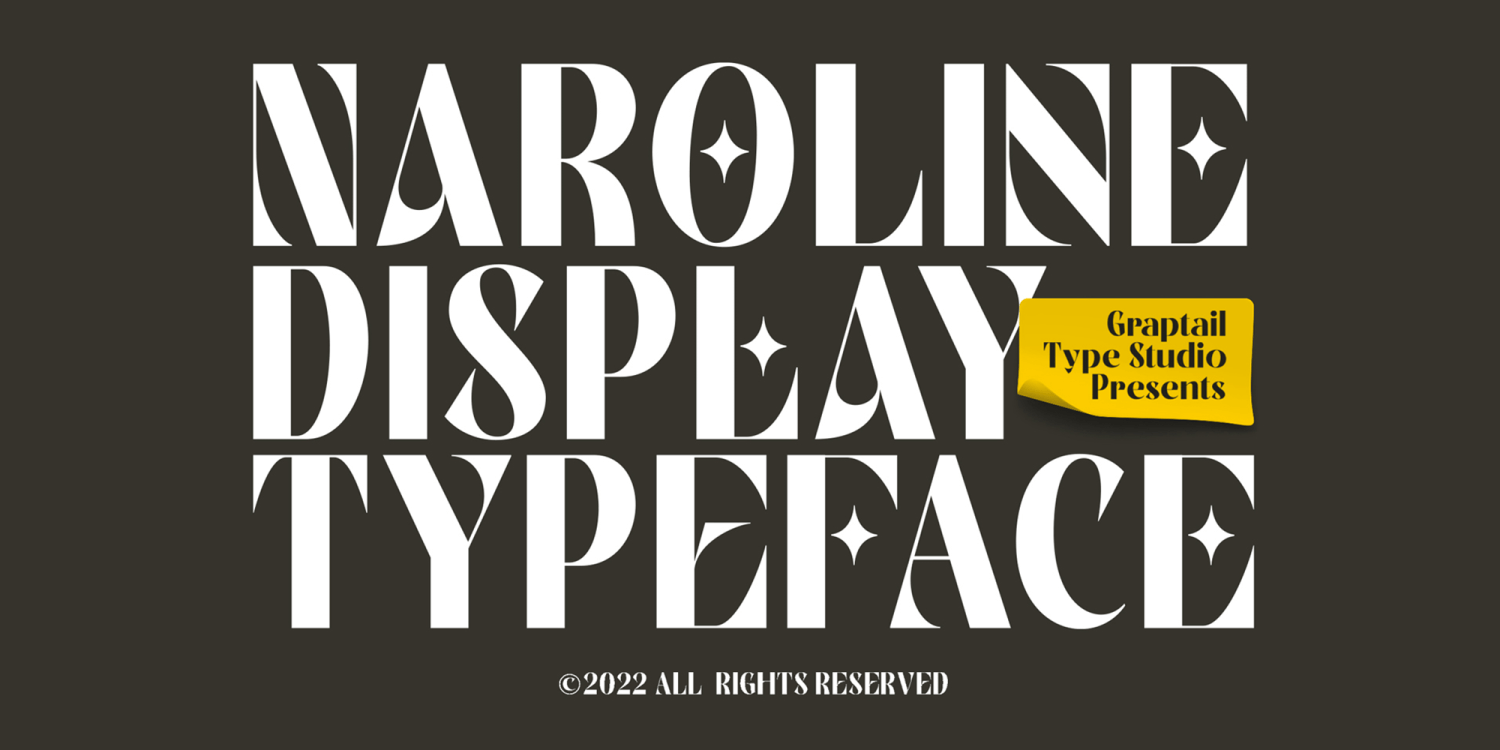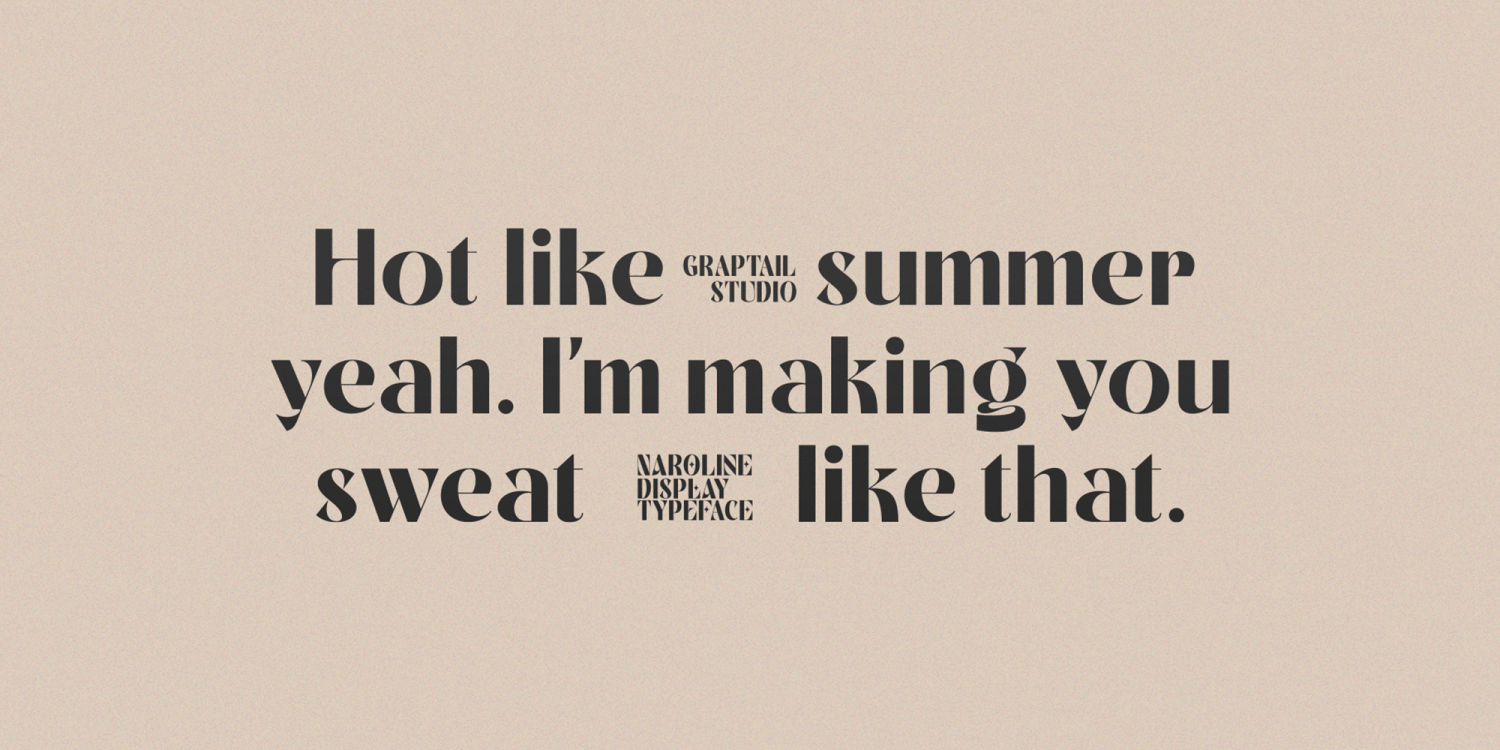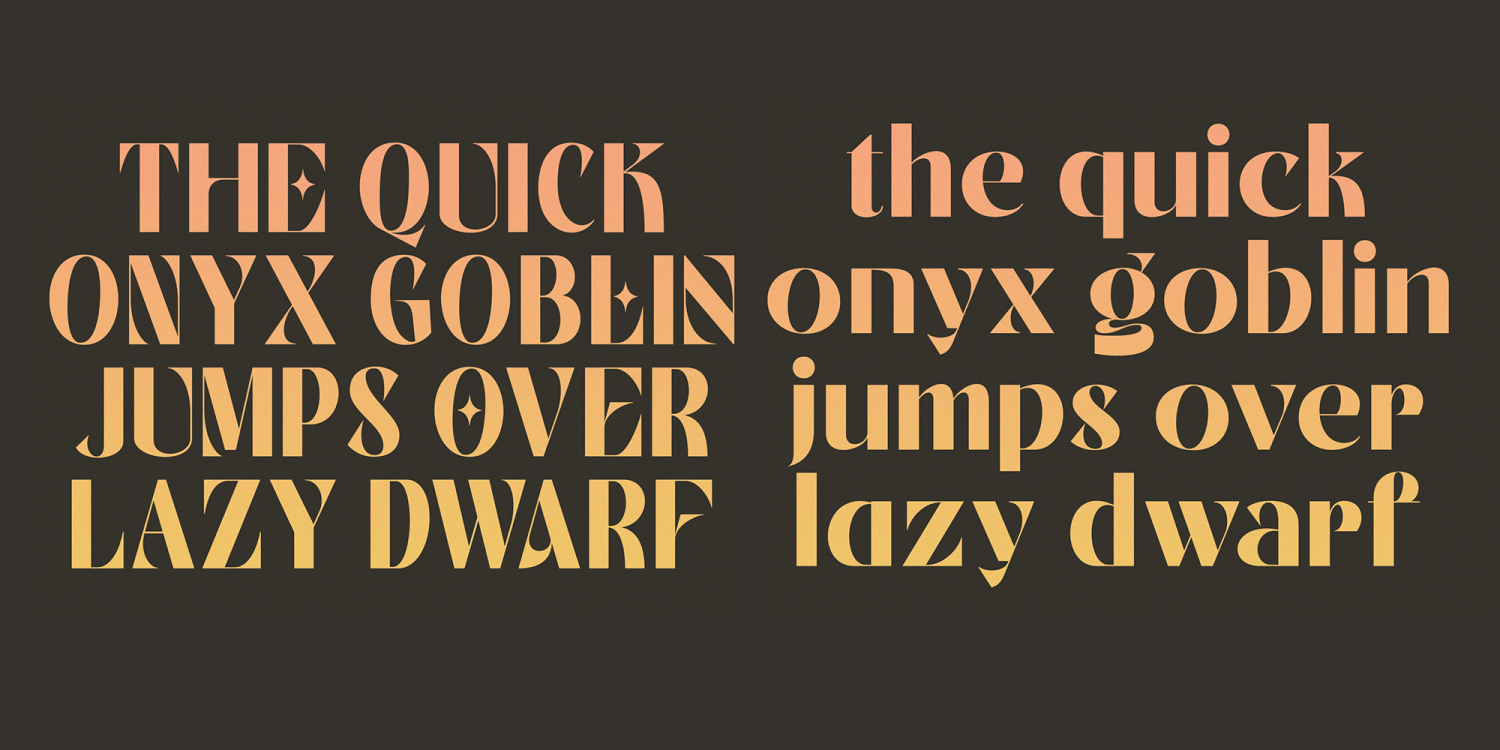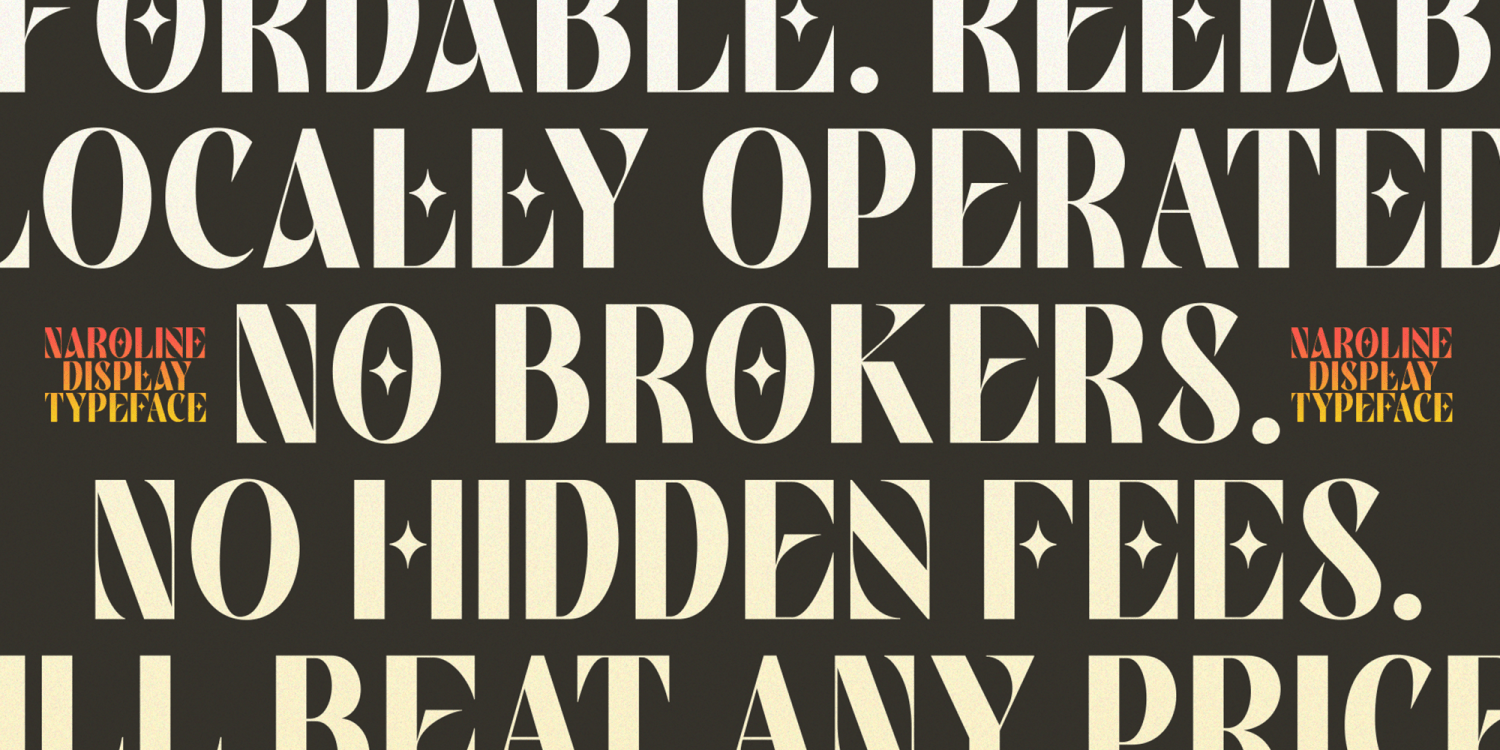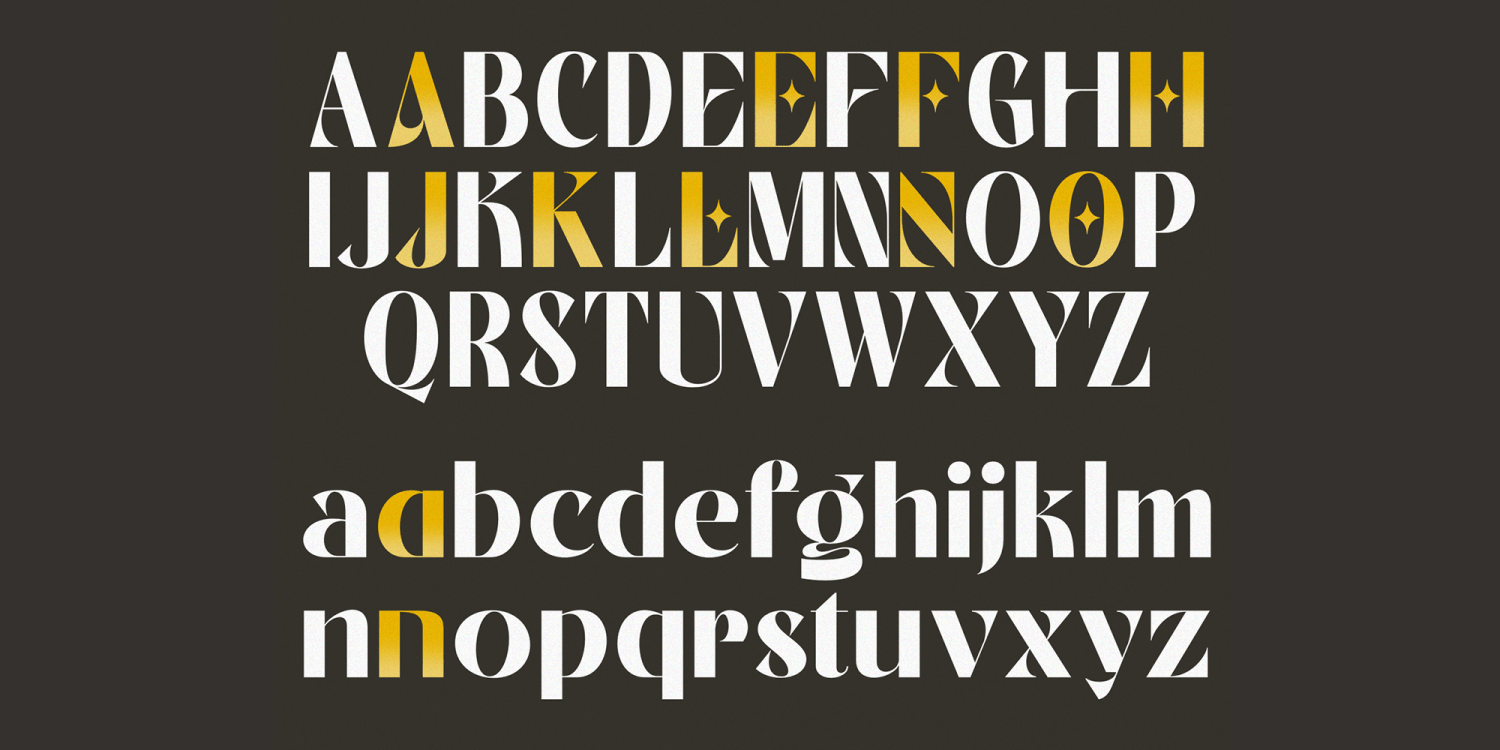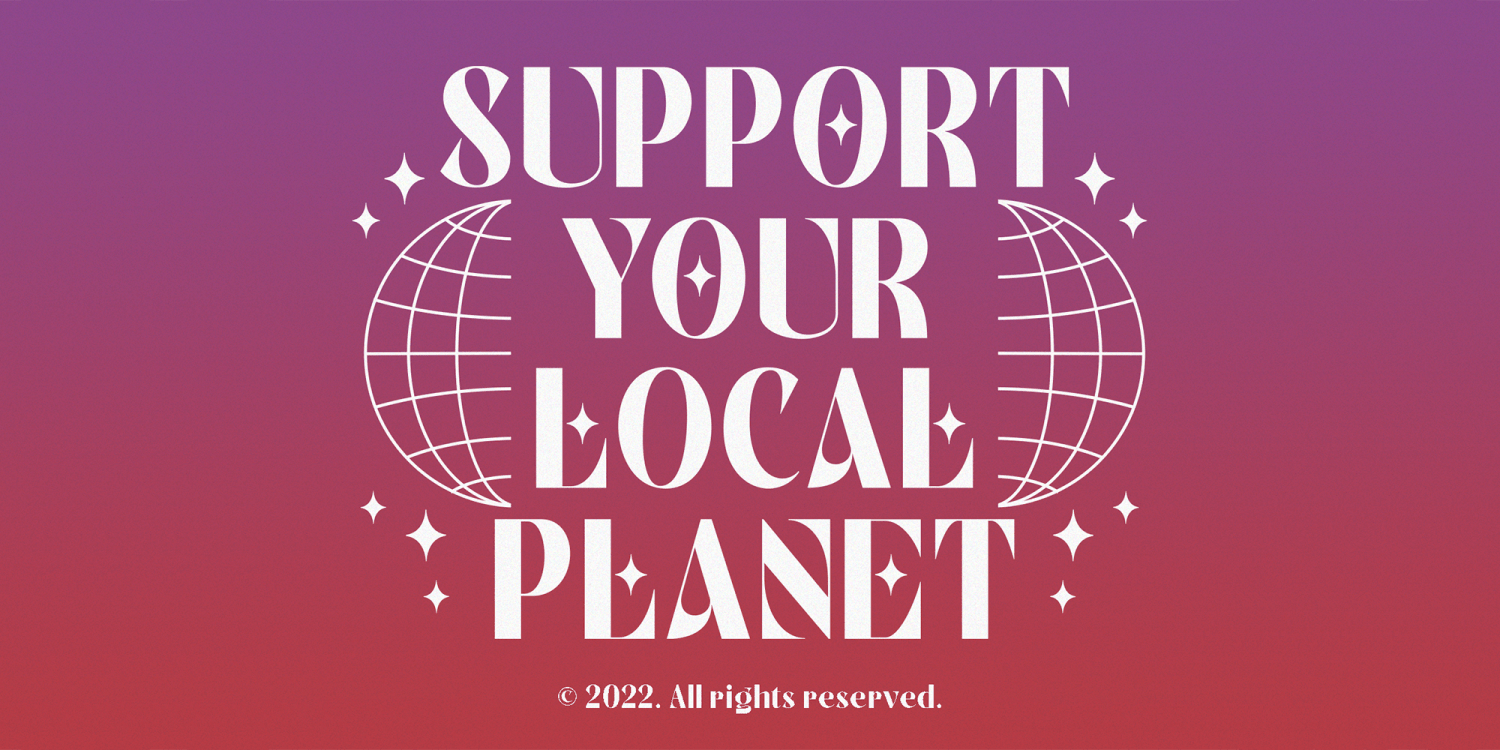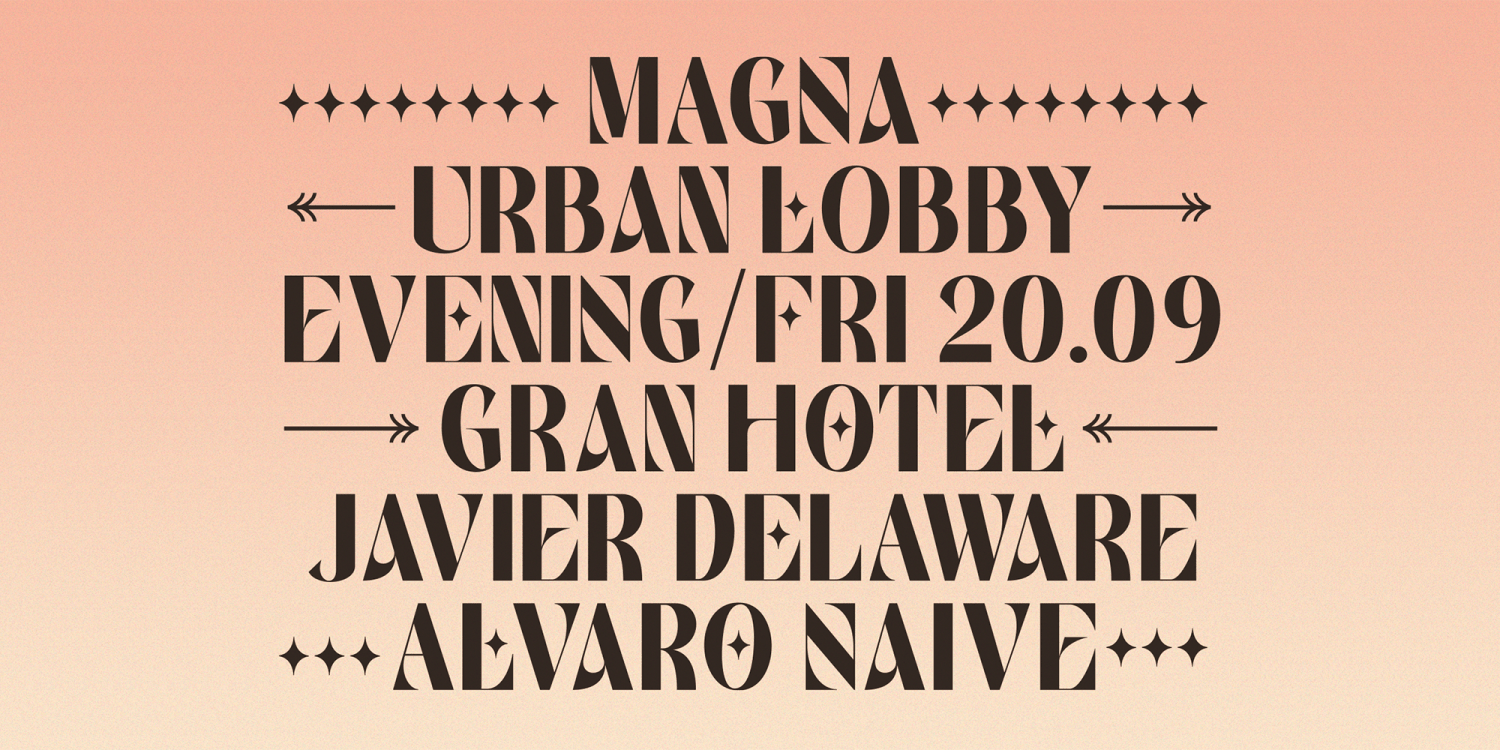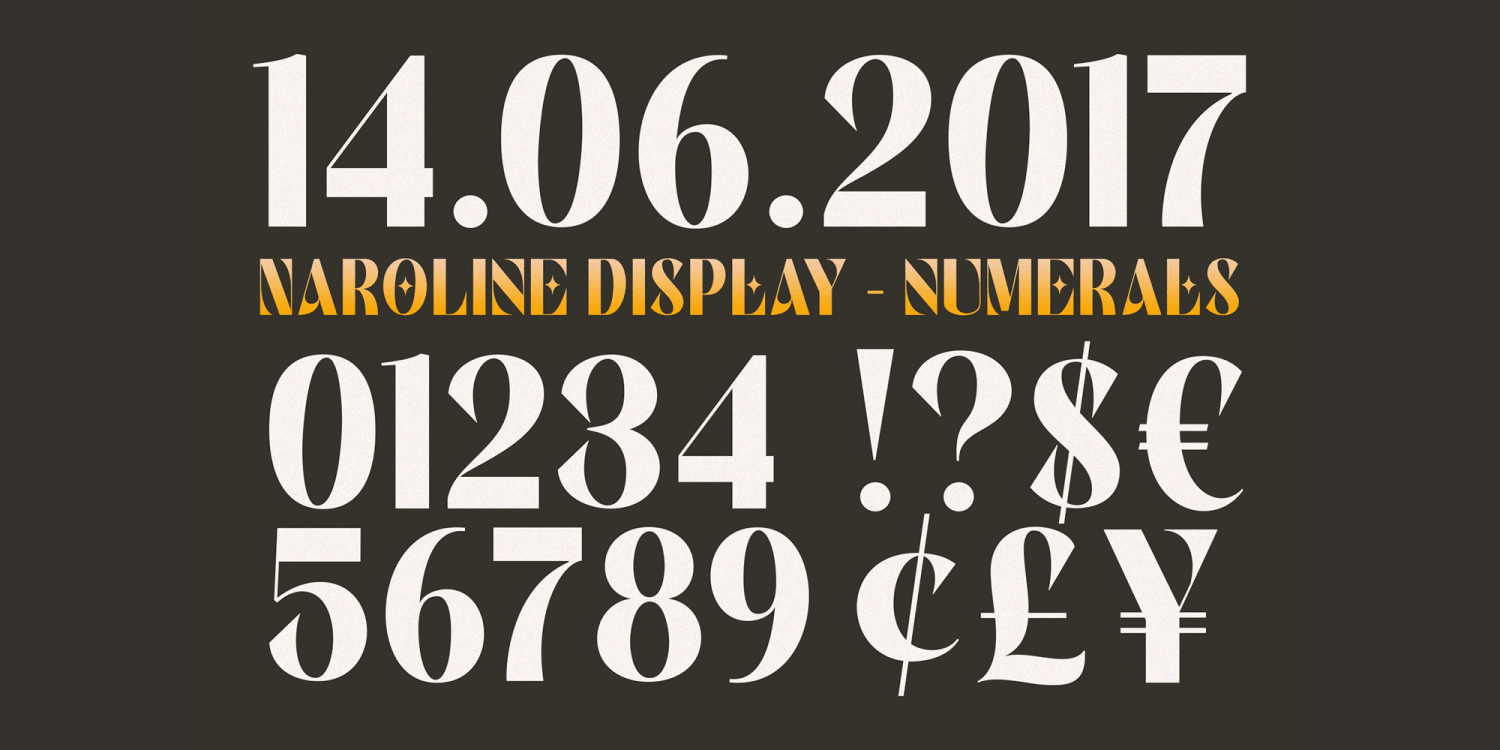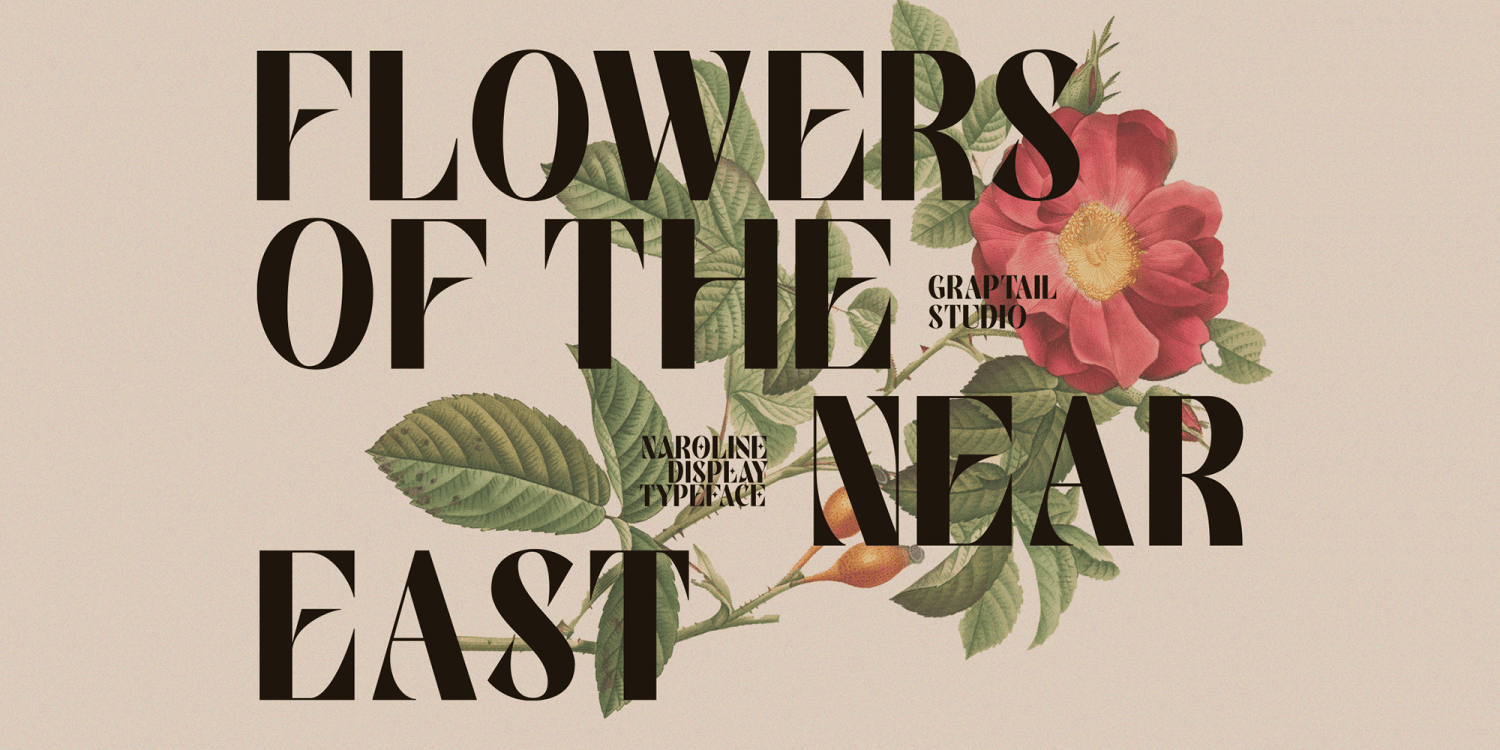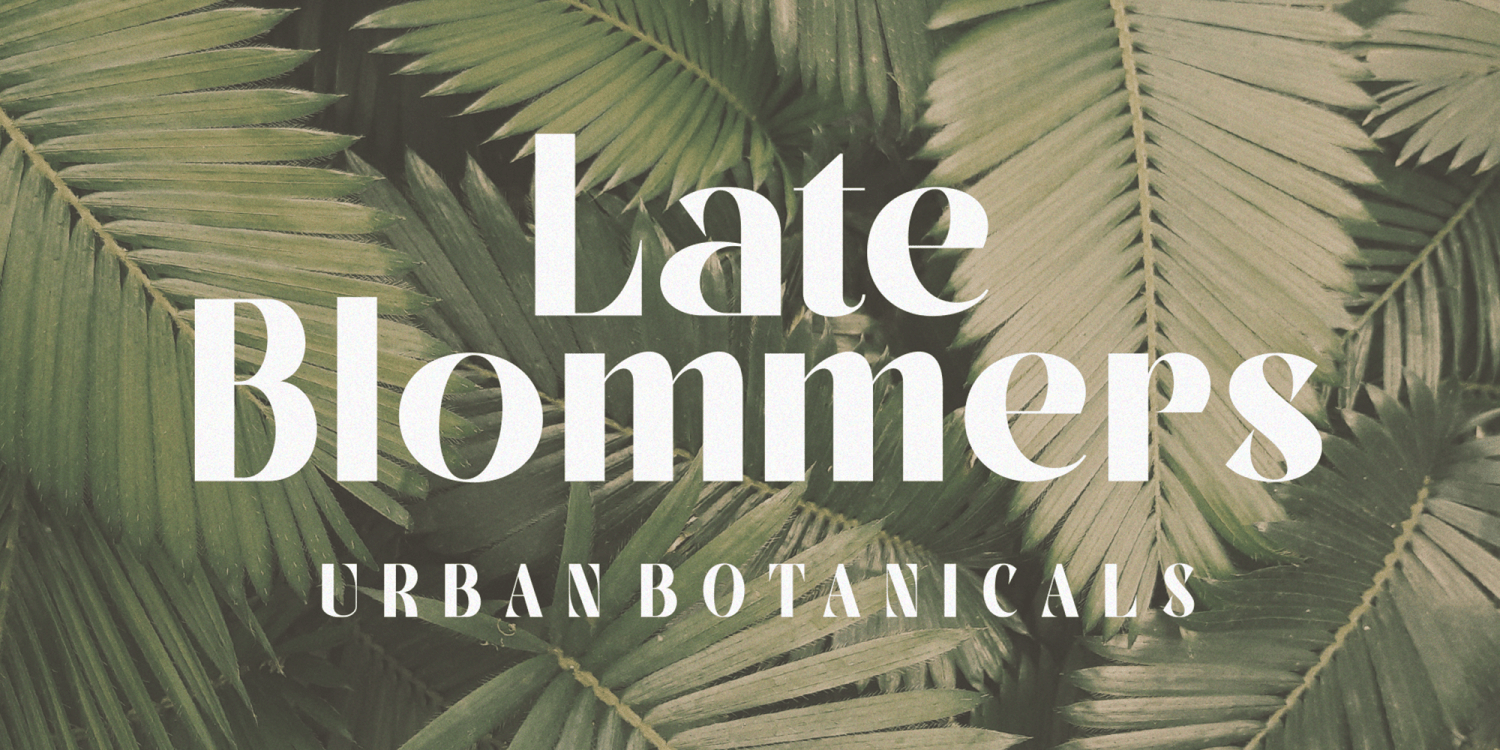
Naroline
Font Family by Graptail
Naroline is a typefaces with a strong characteristic. The ideas are from Art Nouveau era, explore some of other art era and combining them into strong characteristic Naroline. The final fonts are looks Classic yet Modern, like what we do on the preview above, how the fonts can "stands" within your design.